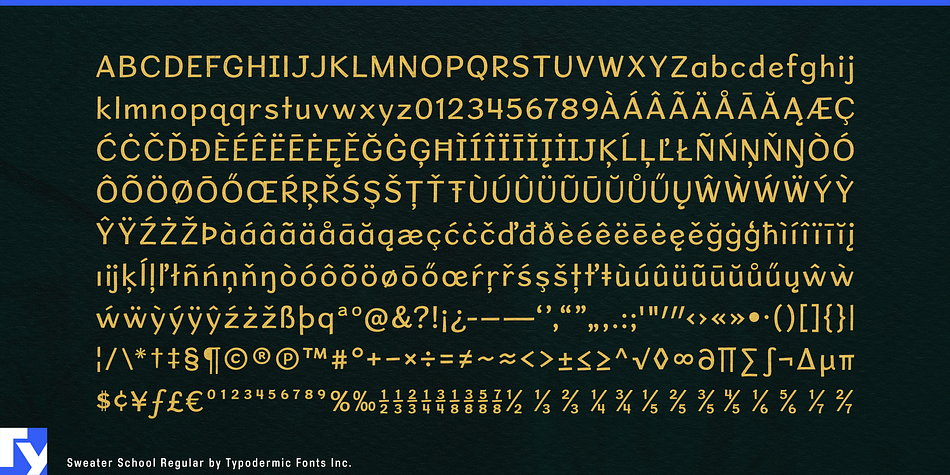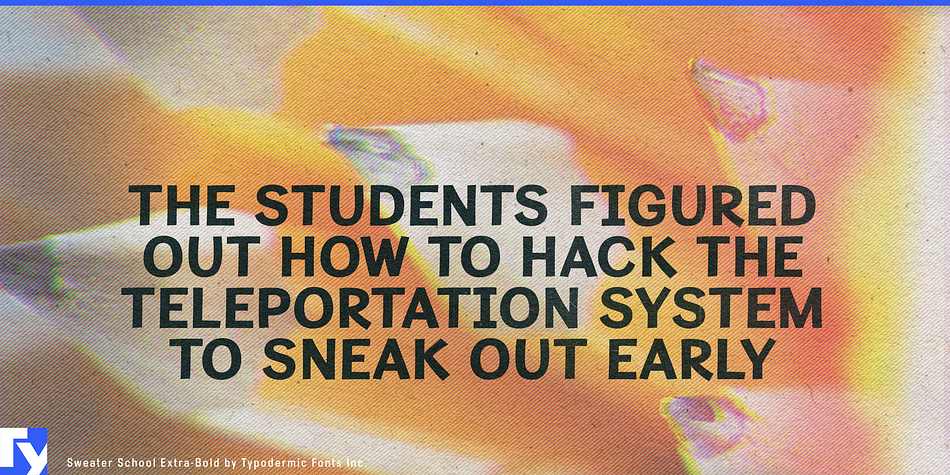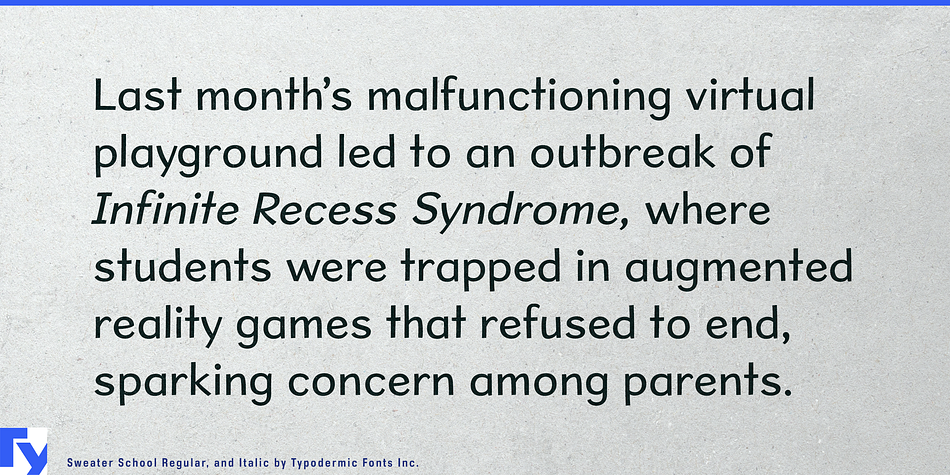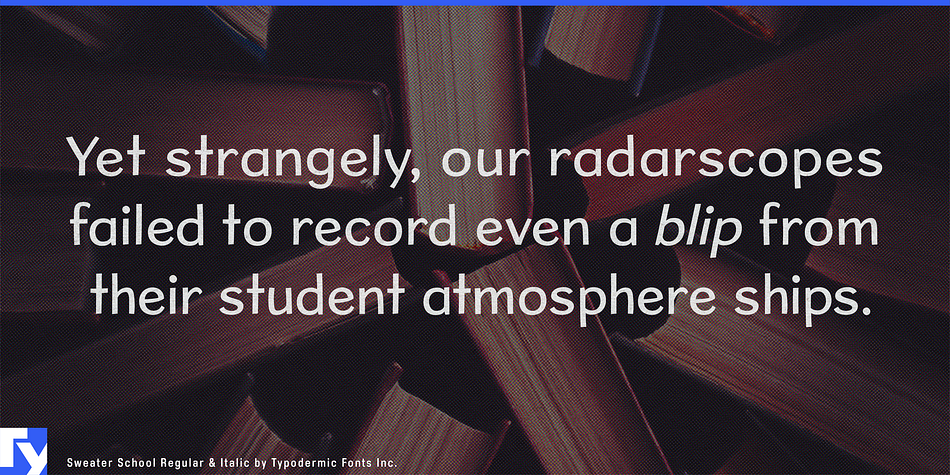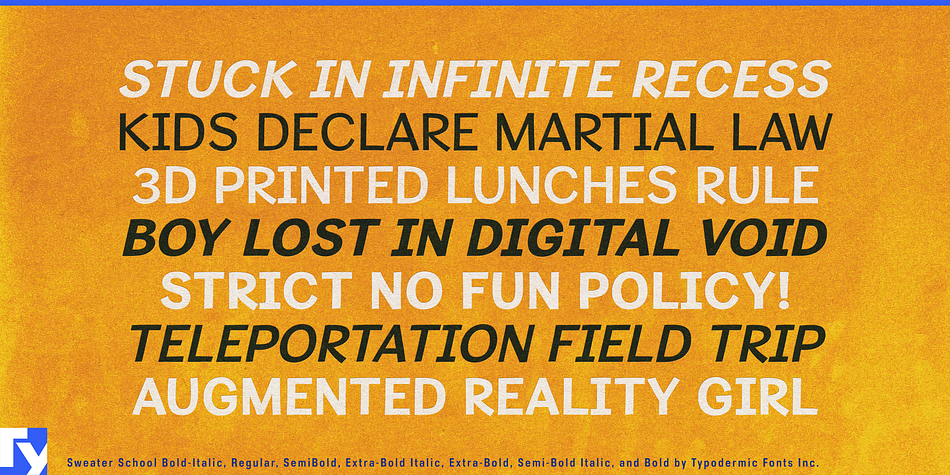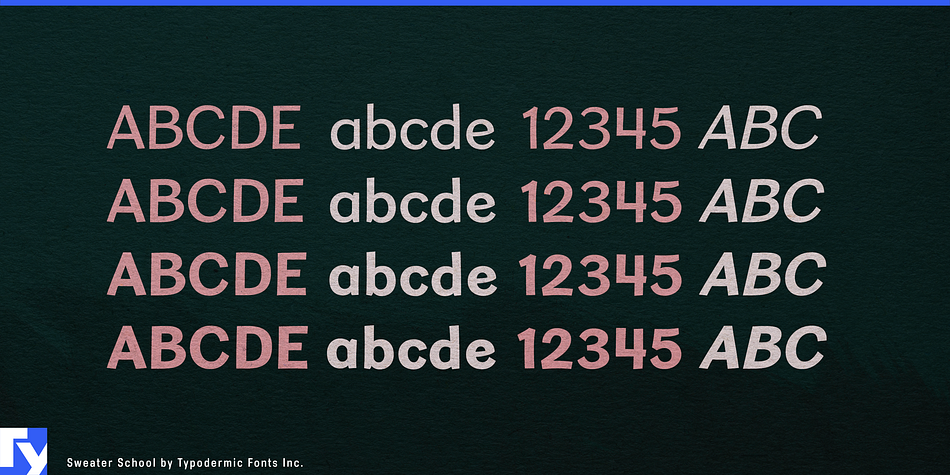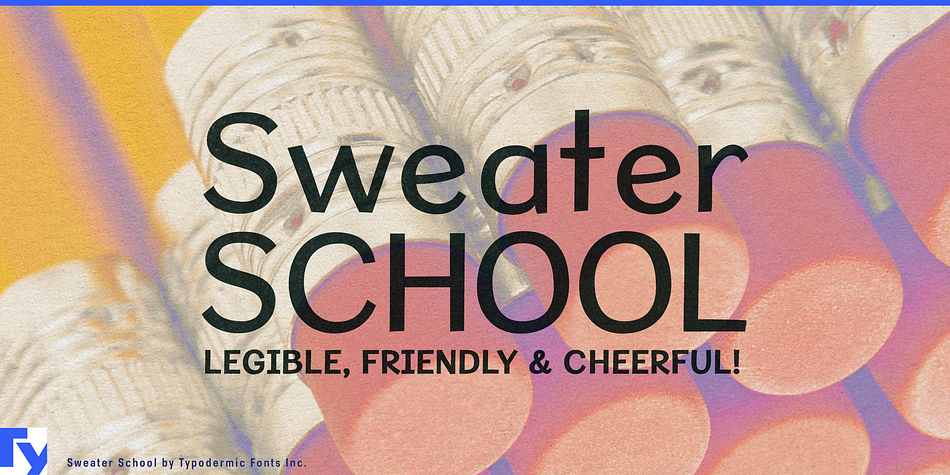
Designed by Ray Larabie, Sweater School is a sans serif font family. This typeface has eight styles and was published by Typodermic Fonts Inc.
Sweater School is a warm and inviting teacher’s typeface. The structure is similar to the print style preferred by elementary school teachers, but with significant improvements to increase readability. It has an alternate “J,” “I,” “q,” and nut fractions (vertical fractions). These variations can be accessed through your application’s OpenType “stylistic alternates” capability. Sweater School is available in four weights and italics. Most Latin-based European writing systems are supported, including the following languages. Afaan Oromo, Afar, Afrikaans, Albanian, Alsatian, Aromanian, Aymara, Bashkir (Latin), Basque, Belarusian (Latin), Bemba, Bikol, Bosnian, Breton, Cape Verdean, Creole, Catalan, Cebuano, Chamorro, Chavacano, Chichewa, Crimean Tatar (Latin), Croatian, Czech, Danish, Dawan, Dholuo, Dutch, English, Estonian, Faroese, Fijian, Filipino, Finnish, French, Frisian, Friulian, Gagauz (Latin), Galician, Ganda, Genoese, German, Greenlandic, Guadeloupean Creole, Haitian Creole, Hawaiian, Hiligaynon, Hungarian, Icelandic, Ilocano, Indonesian, Irish, Italian, Jamaican, Kaqchikel, Karakalpak (Latin), Kashubian, Kikongo, Kinyarwanda, Kirundi, Kurdish (Latin), Latvian, Lithuanian, Lombard, Low Saxon, Luxembourgish, Maasai, Makhuwa, Malay, Maltese, Māori, Moldovan, Montenegrin, Ndebele, Neapolitan, Norwegian, Novial, Occitan, Ossetian (Latin), Papiamento, Piedmontese, Polish, Portuguese, Quechua, Rarotongan, Romanian, Romansh, Sami, Sango, Saramaccan, Sardinian, Scottish Gaelic, Serbian (Latin), Shona, Sicilian, Silesian, Slovak, Slovenian, Somali, Sorbian, Sotho, Spanish, Swahili, Swazi, Swedish, Tagalog, Tahitian, Tetum, Tongan, Tshiluba, Tsonga, Tswana, Tumbuka, Turkish, Turkmen (Latin), Tuvaluan, Uzbek (Latin), Venetian, Vepsian, Võro, Walloon, Waray-Waray, Wayuu, Welsh, Wolof, Xhosa, Yapese, Zapotec Zulu and Zuni.